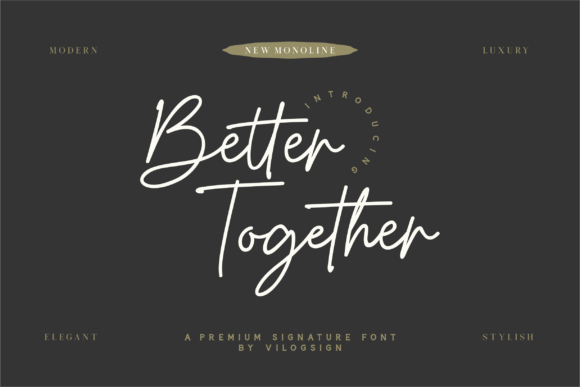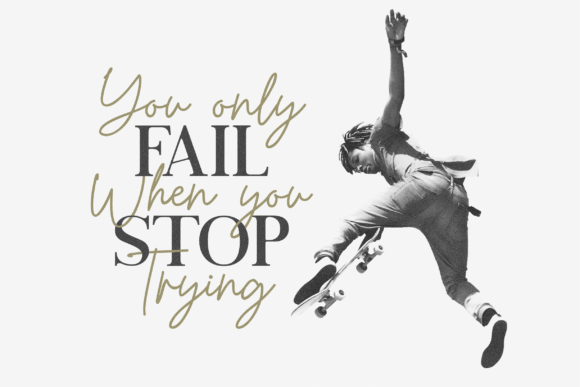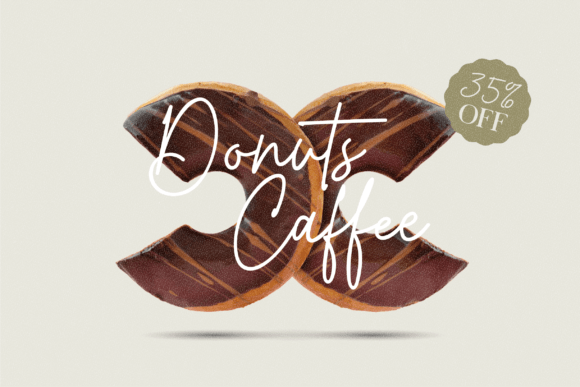
Better Together Font
Better Together is a monoline script font with a modern look and feel.
This typeface is perfect for branding, and other formal forms, such as invitations, labels, logos, magazines, books, greeting/wedding cards, packaging, fashion, make-up, stationery, novels, labels, or advertising.